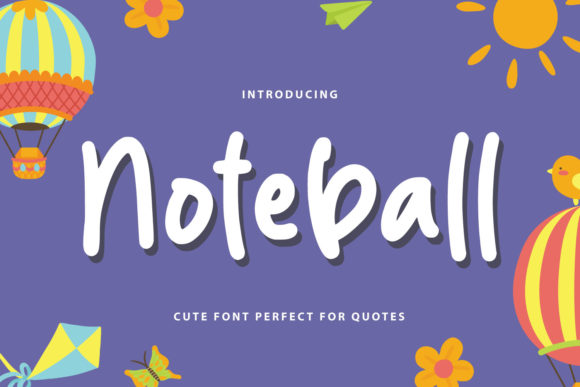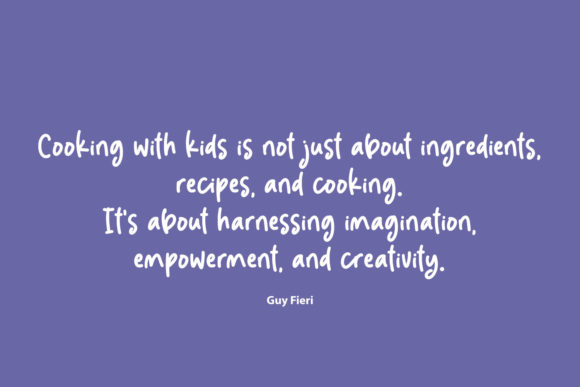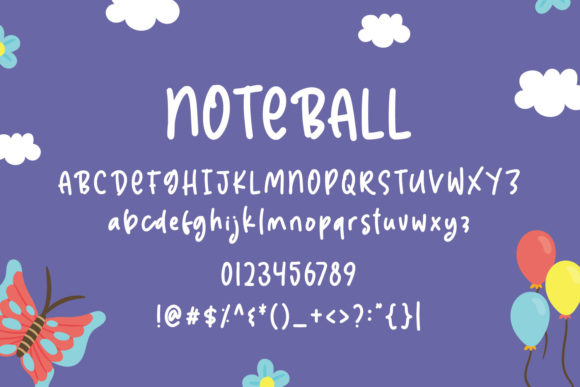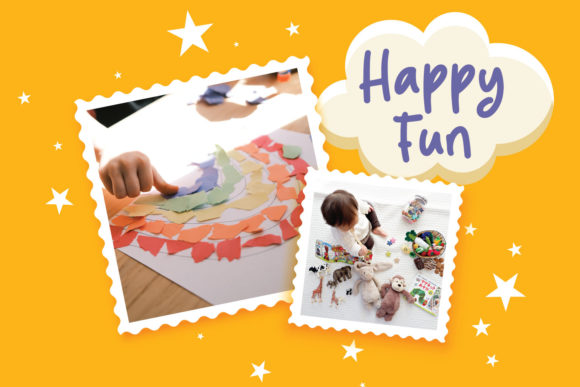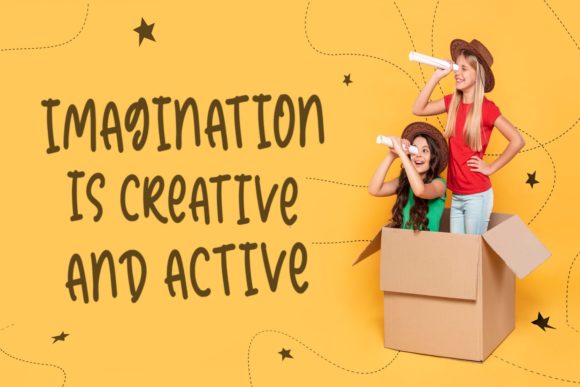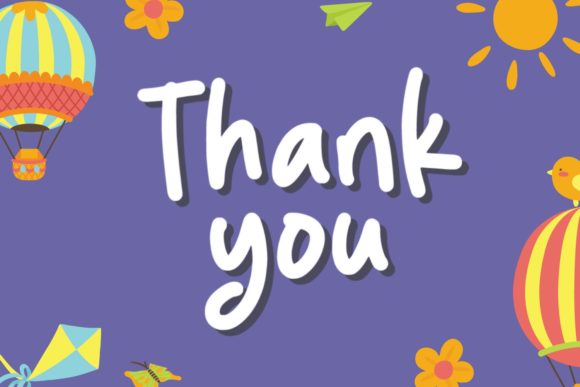
Noteball Font
About Noteball Font
Noteball is a playful and neat handwritten font. Whether you are using it for cartoon-related designs, children’s games, quotes, titles, brand names, book covers, posters, or just any creation that requires a touch of beauty, this font is a great choice.